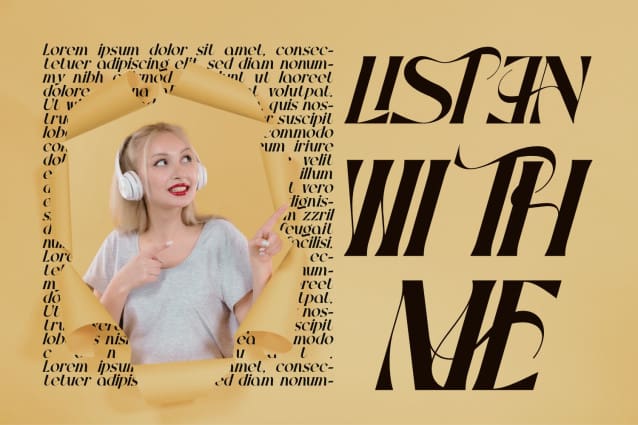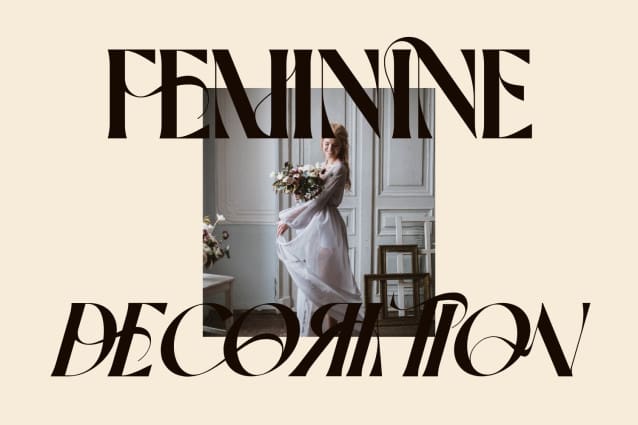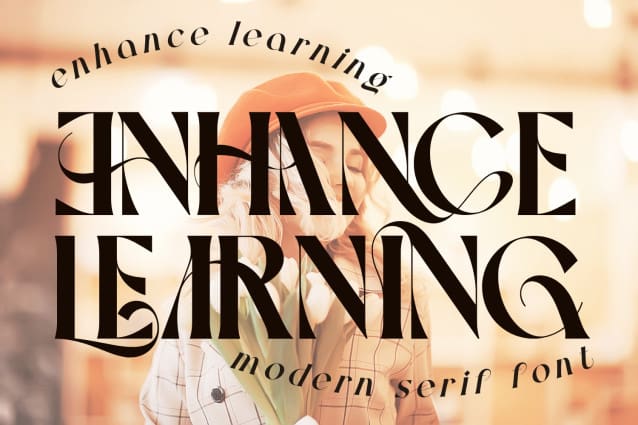
Enhance Learning Font
ENHANCE LEARNING FONT – A contemporary serif font that seamlessly blends elegance with versatility. This is a very elegant and classy font for all branding and logo designs This type of serif font is created with elegance and luxury so it is perfect for all your design needs. This font is equipped with many beautiful and unique ligature options.
ENHANCE LEARNING was built with OpenType features and includes 100 ligatures, alternate, numbers, punctuation, and it also supports other languages.
AC AD AL AN AR AS AT AU AV BE CA CE CH CO CT DE DI EA EC ED EE EL EM EN EP ER ES ET FE FO FR GE HA HE HI HO IE IC IL IN IO IR IS IT JU KE LA LE LI LL LO LY MA ME MI NC ND NE NG NO NT NS OC OF OM ON OO OP OR OT OU OW PA PR RA RD RE RI RO RS RT SE SH SI SO SS ST TA TE TH TI TO TR TT UM UN UR VE WI WO